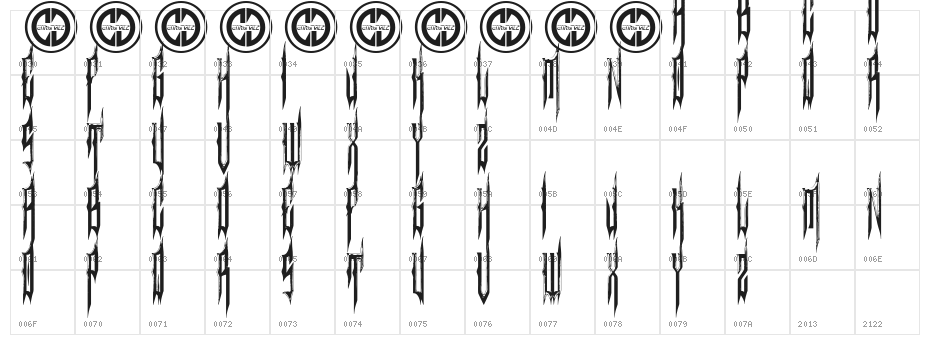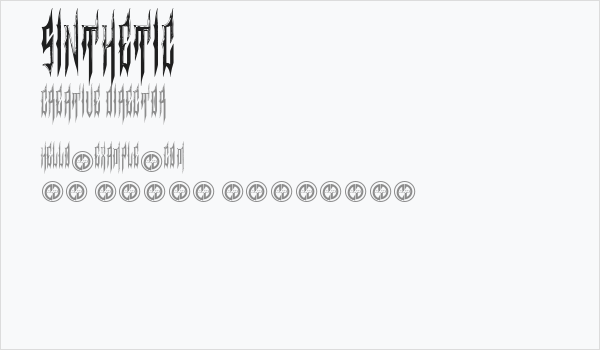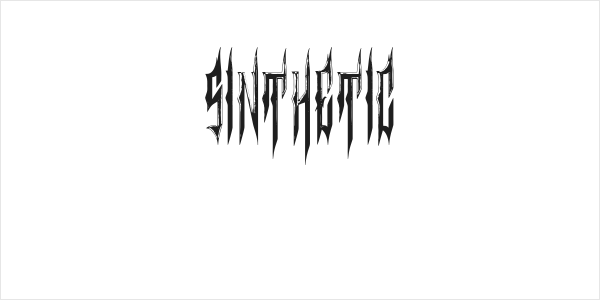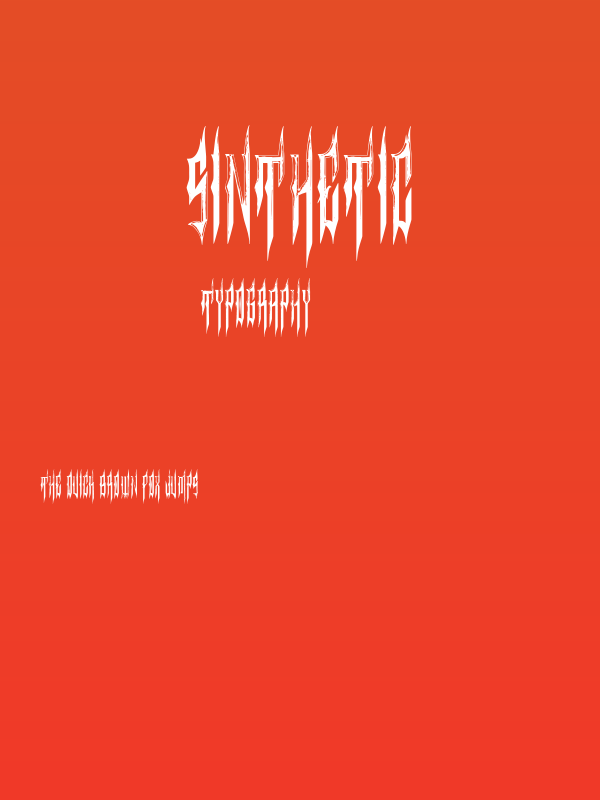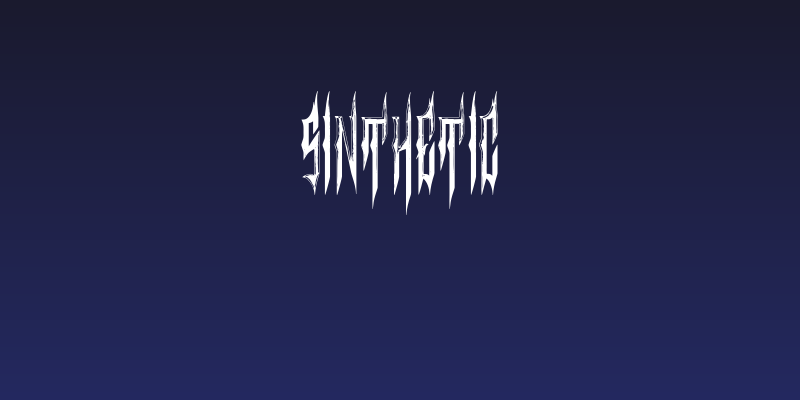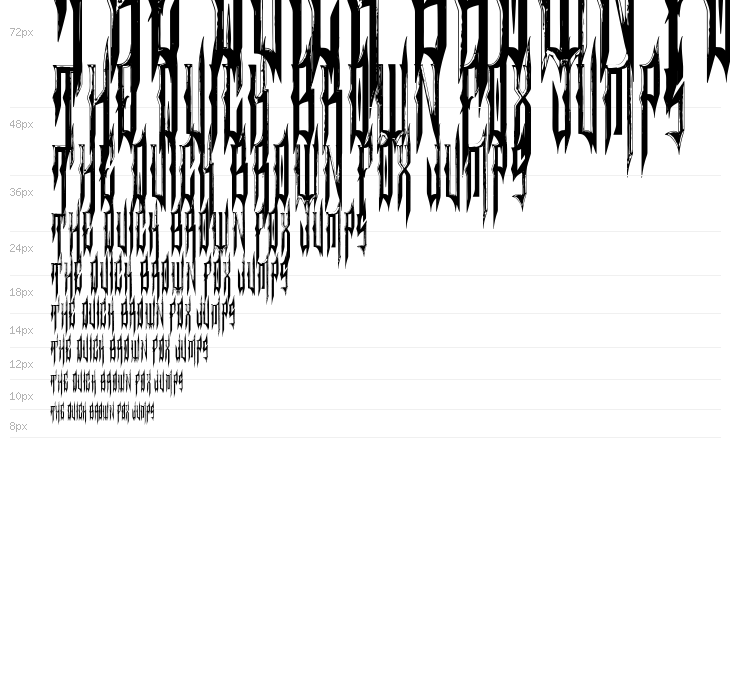
Sinthetic Font
Sinthetic Description
This font exhibits a highly decorative and intricate design, characterized by elongated and sharp-edged letterforms. The strokes are bold and feature a distressed, almost fragmented appearance, giving it a unique and edgy look. The uppercase and lowercase letters maintain a consistent style, with exaggerated vertical lines and angular serifs. The numbers and special characters follow the same aesthetic, ensuring a cohesive visual experience. This font is particularly striking due to its high contrast between thick and thin lines, creating a dramatic effect that commands attention.
| Proposed Projects | Ideal for album covers, poster designs, and branding projects that require a bold, edgy aesthetic. |